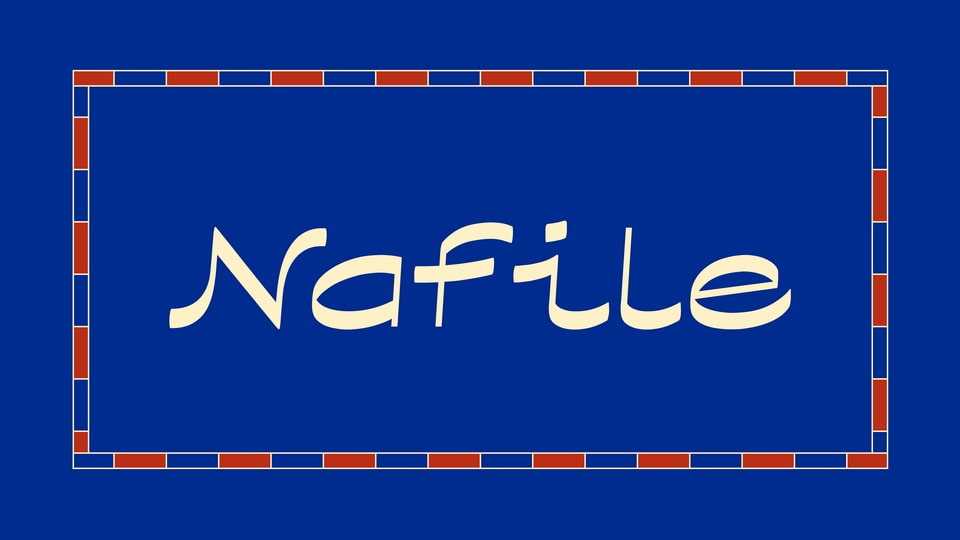
Download Nafile font, a modern-arabesque fusion, display typeface, born in Barcelona, inspired by the city where the initial sketches came to life.
Designer: Ertekin Erdin